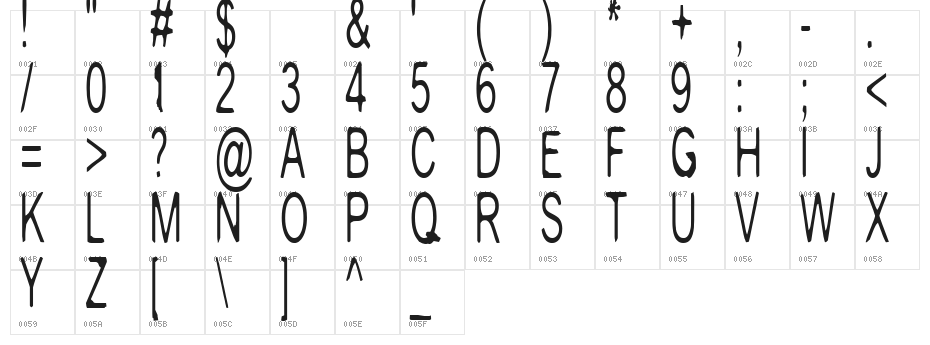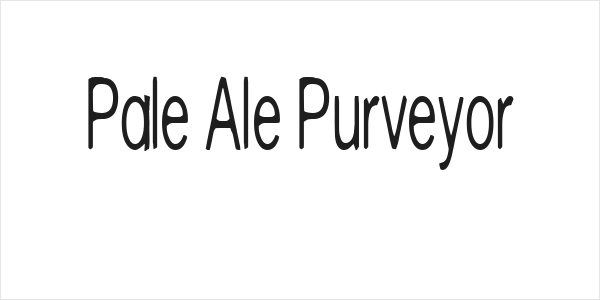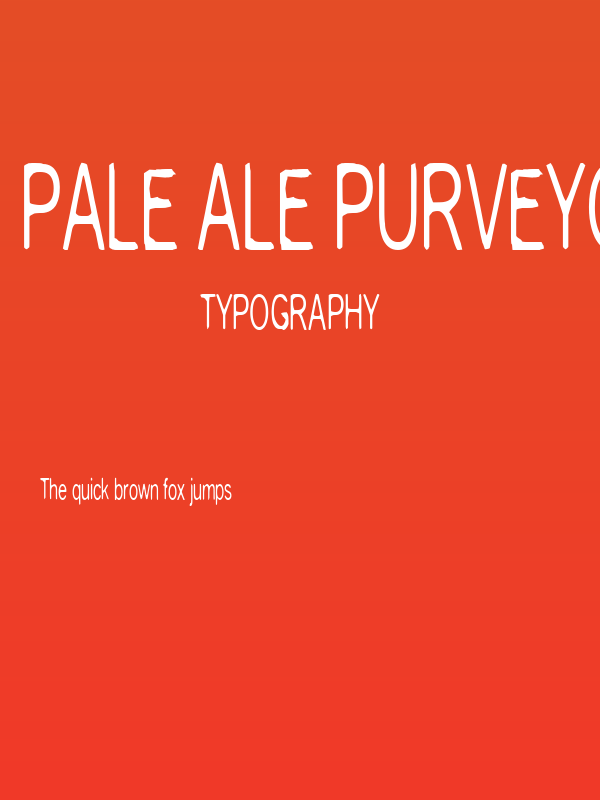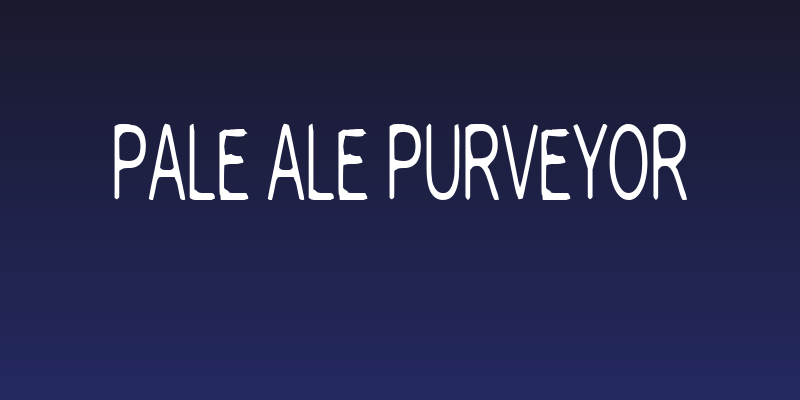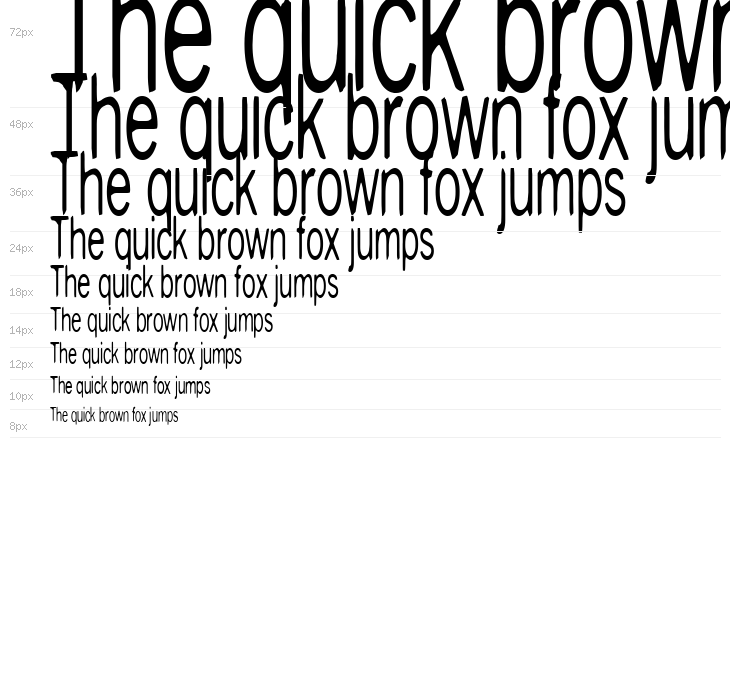
Pale Ale Purveyor Font
Pale Ale Purveyor Description
This font features a playful and quirky design with a hand-drawn aesthetic. The characters are bold and slightly irregular, giving them a unique and informal appearance. The uppercase letters are tall and narrow, while the lowercase letters maintain a consistent height, adding to the whimsical feel. The numbers and special characters follow the same style, with some characters like the ampersand and dollar sign having distinctive, artistic flourishes. The overall look is casual and friendly, making it suitable for projects that require a personal touch.
| Proposed Projects | Ideal for children's books, creative posters, greeting cards, and informal branding. |